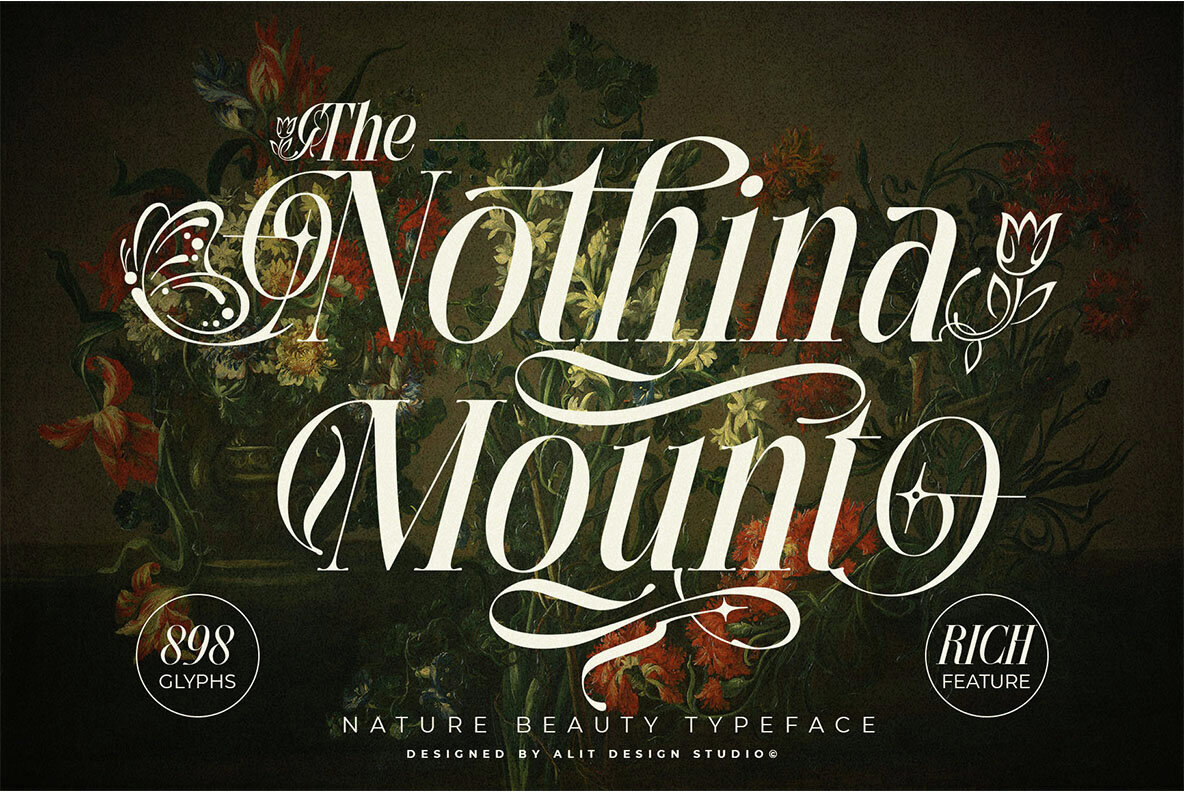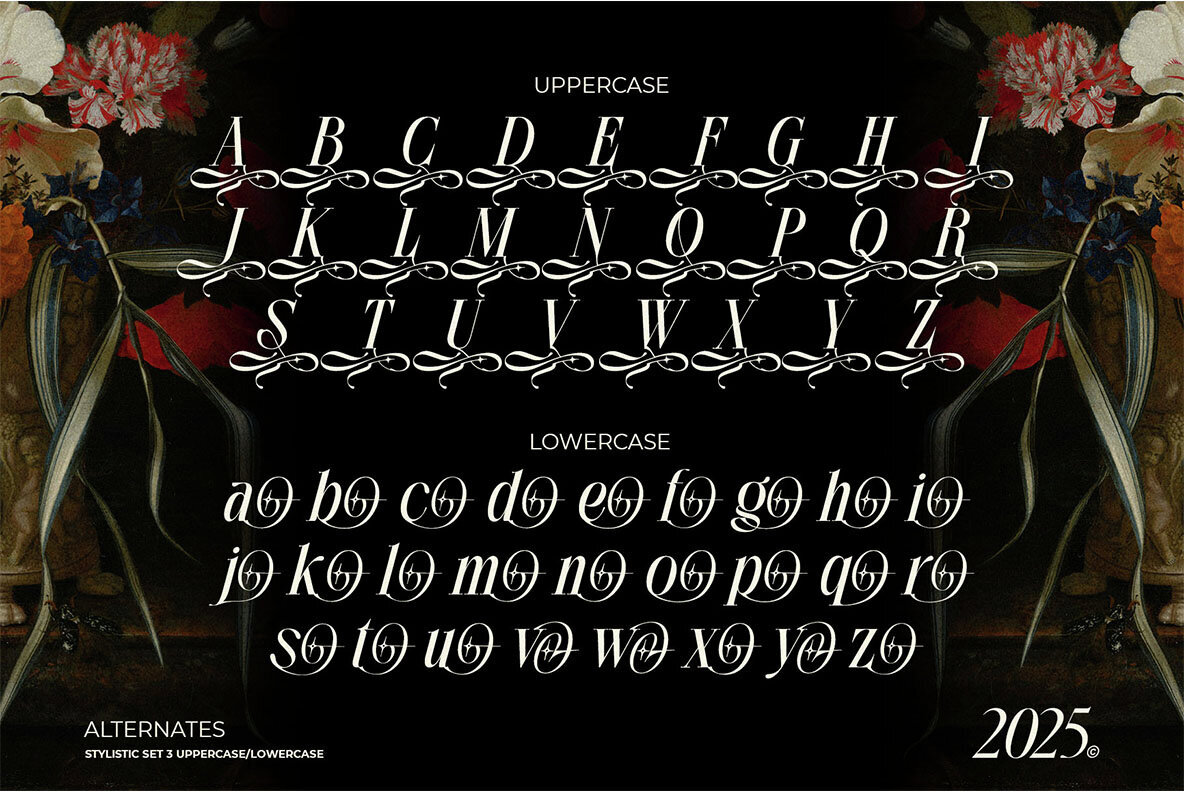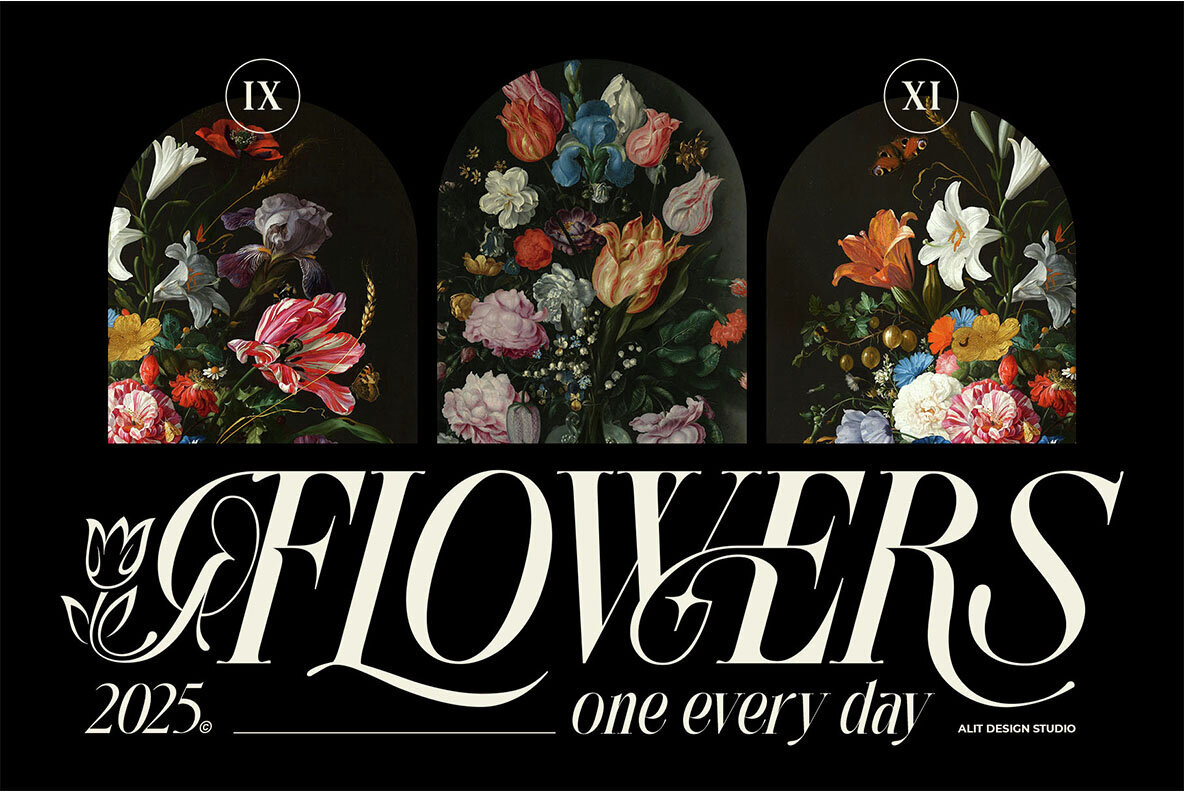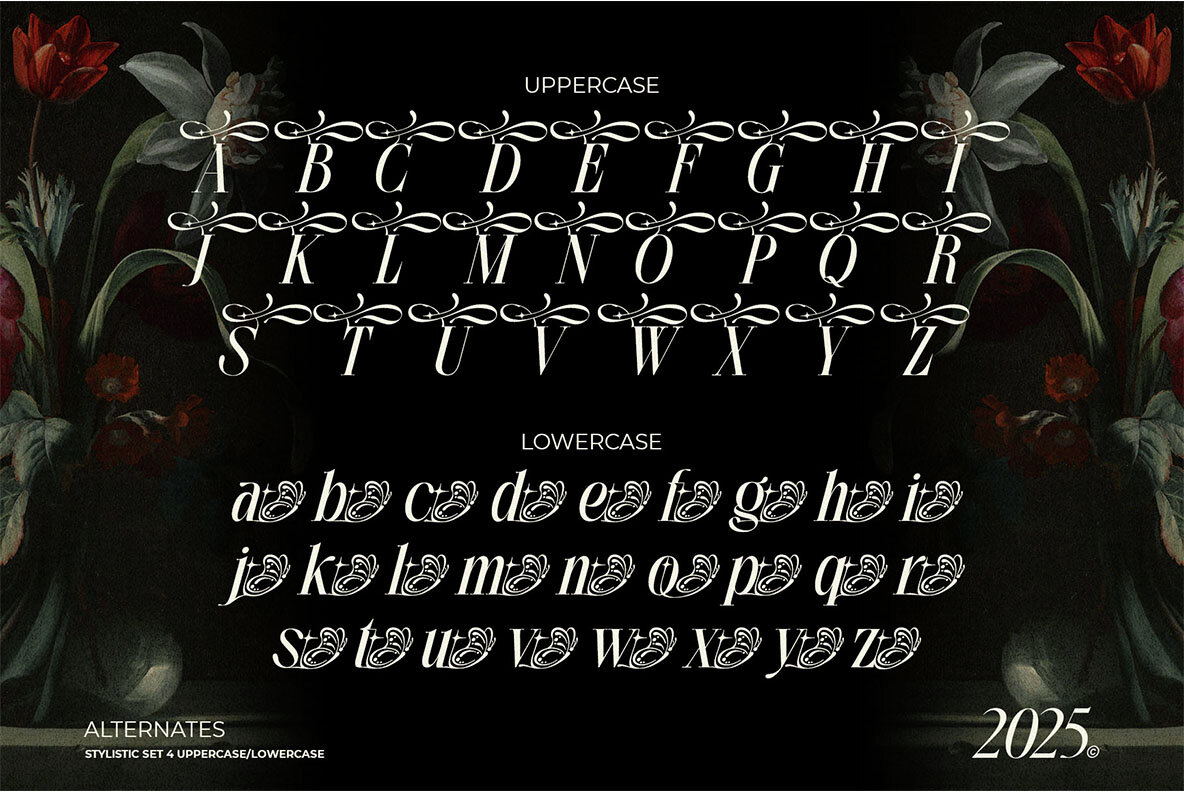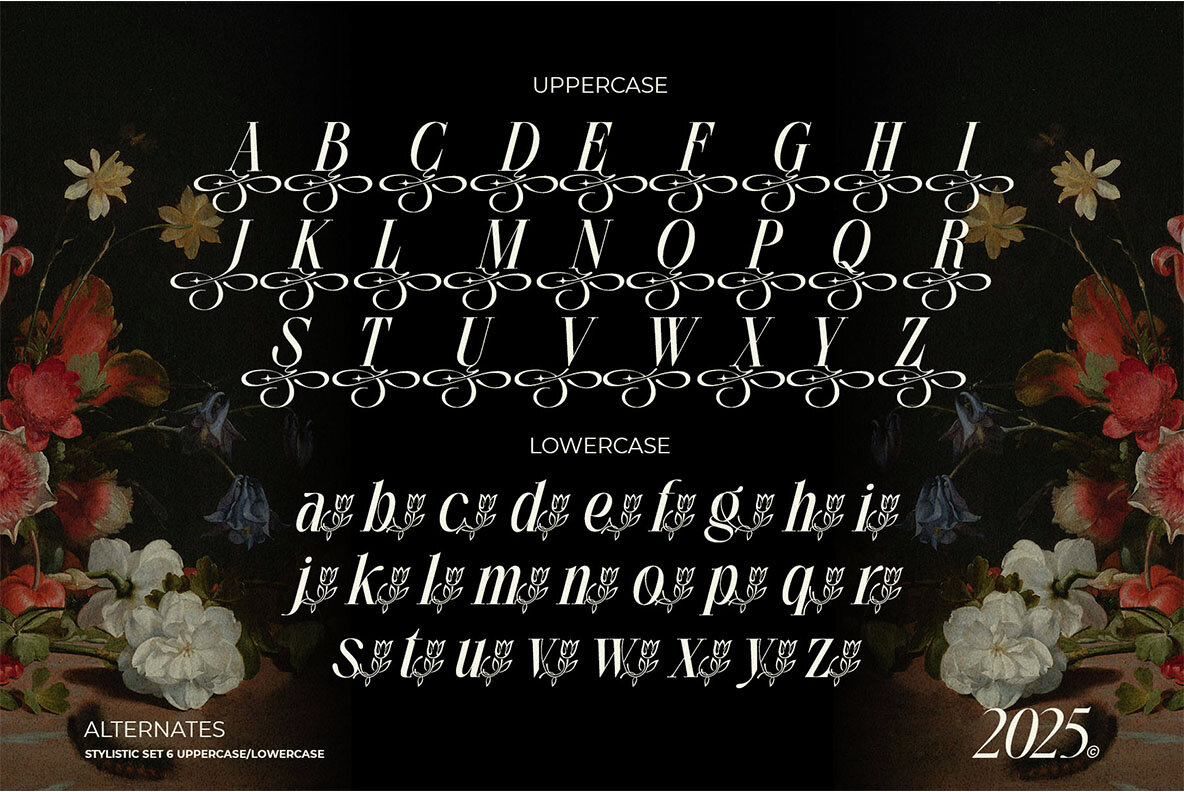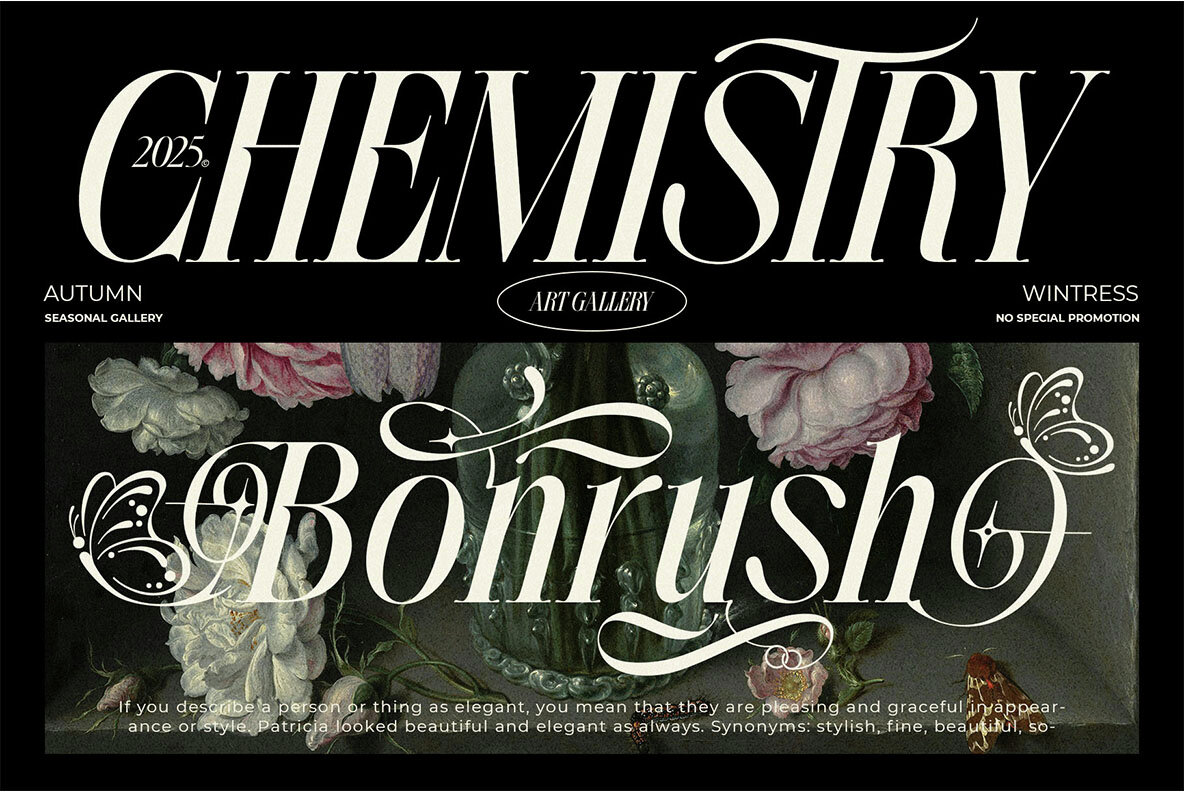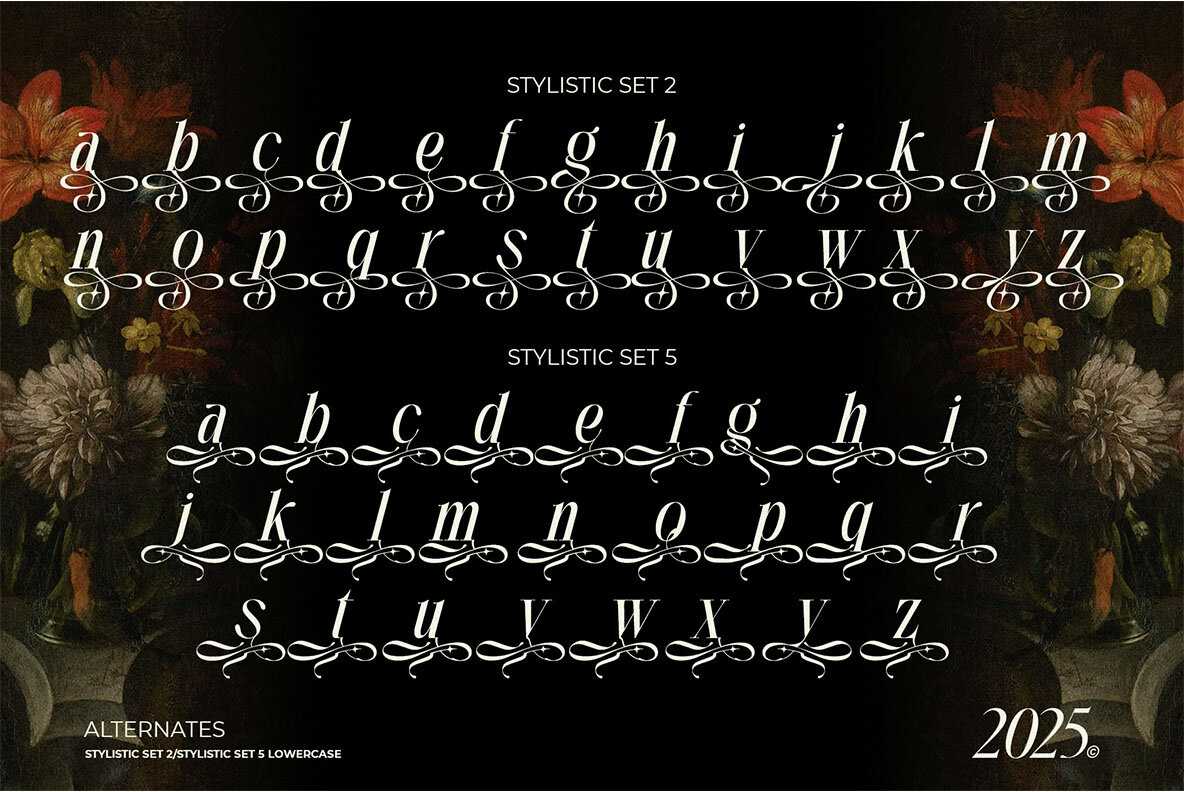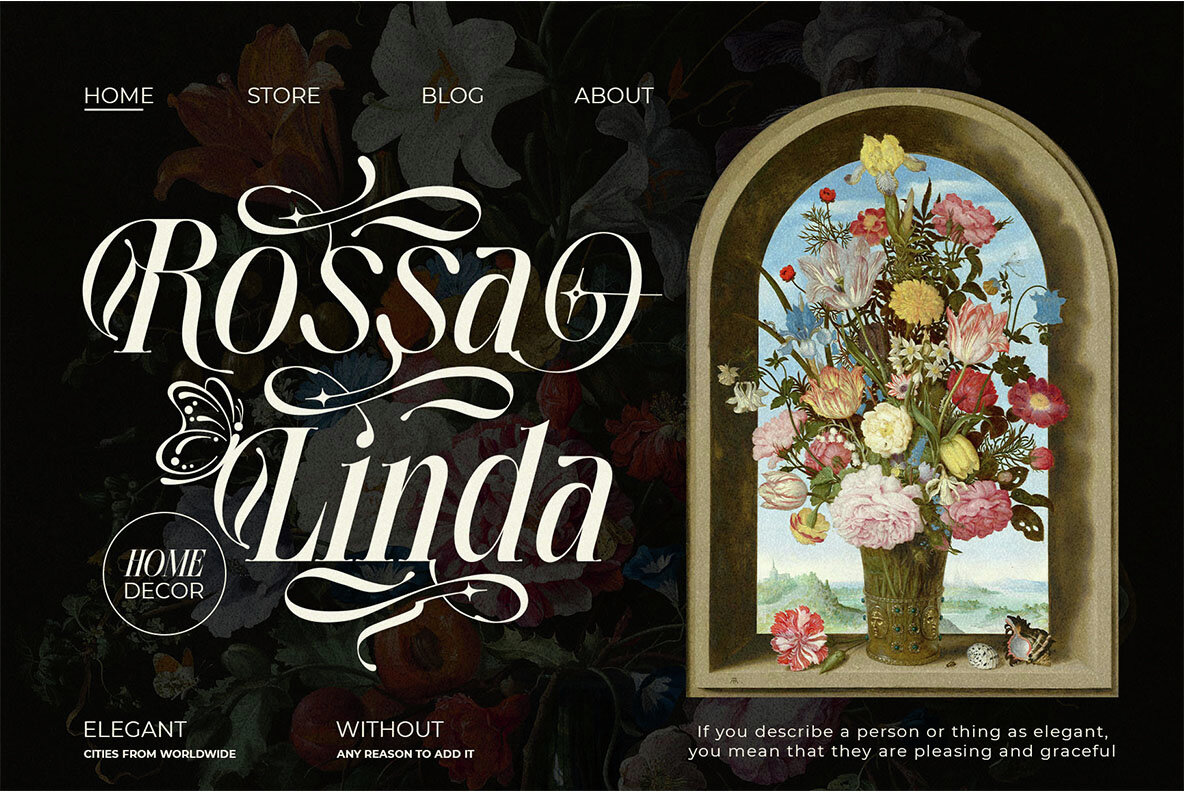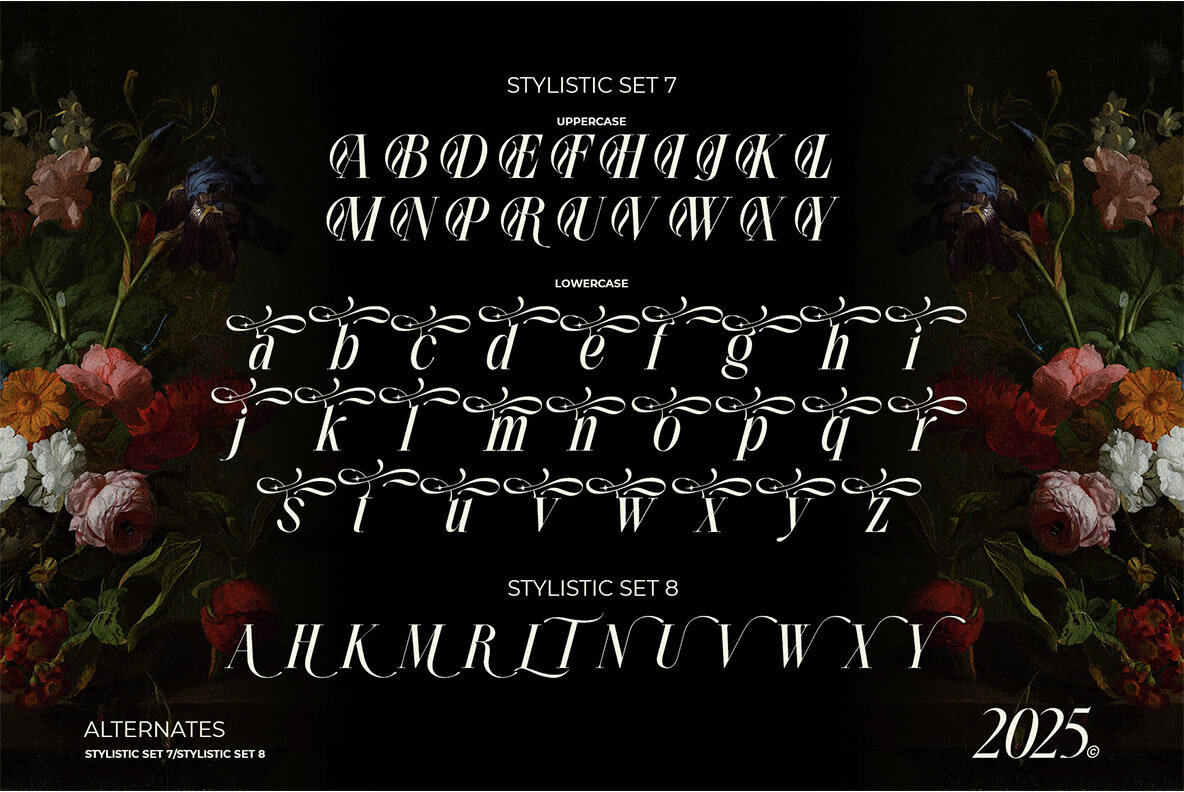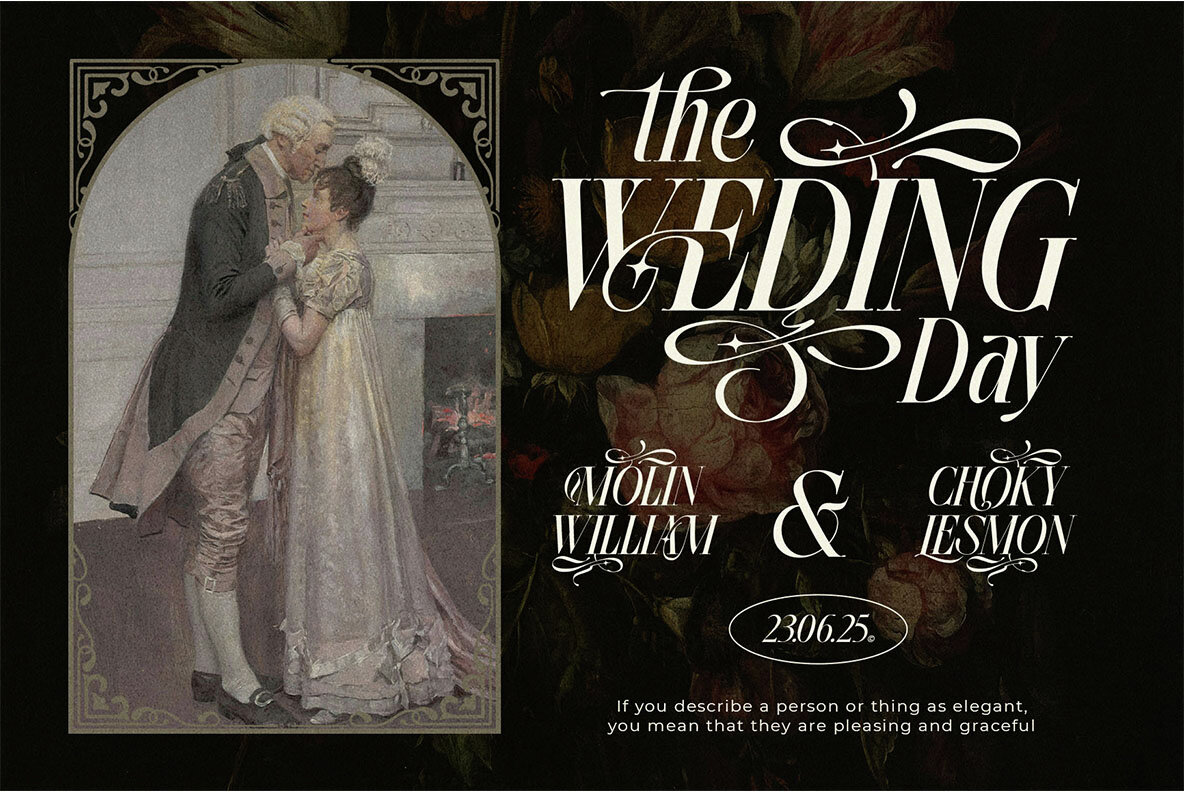
Nothina Mount Font
Nothina Mount Regular
Immerse yourself in the sophisticated elegance of Nothina Mount, a serif typeface where typography transforms into fine art. This luxurious font combines a distinctive slanted posture with flowing curves and expressive swashes, imparting a sense of romantic sophistication to any project. With its unique combination of traditional serif integrity and handwritten script charm, Nothina Mount stands as a statement of beauty and craftsmanship. It's particularly suited for high-end branding, editorial headlines, and nature-themed visuals with its floral motifs and ornate ligatures. Font Features: Perfect For: Experience the detailed craftsmanship and artistic storytelling embodied in each flourish and curve of Nothina Mount. Allow your designs to radiate personality, romance, and timeless charm with this exquisite font that blooms on the page.Nothina Mount Typeface: Art Meets Typography